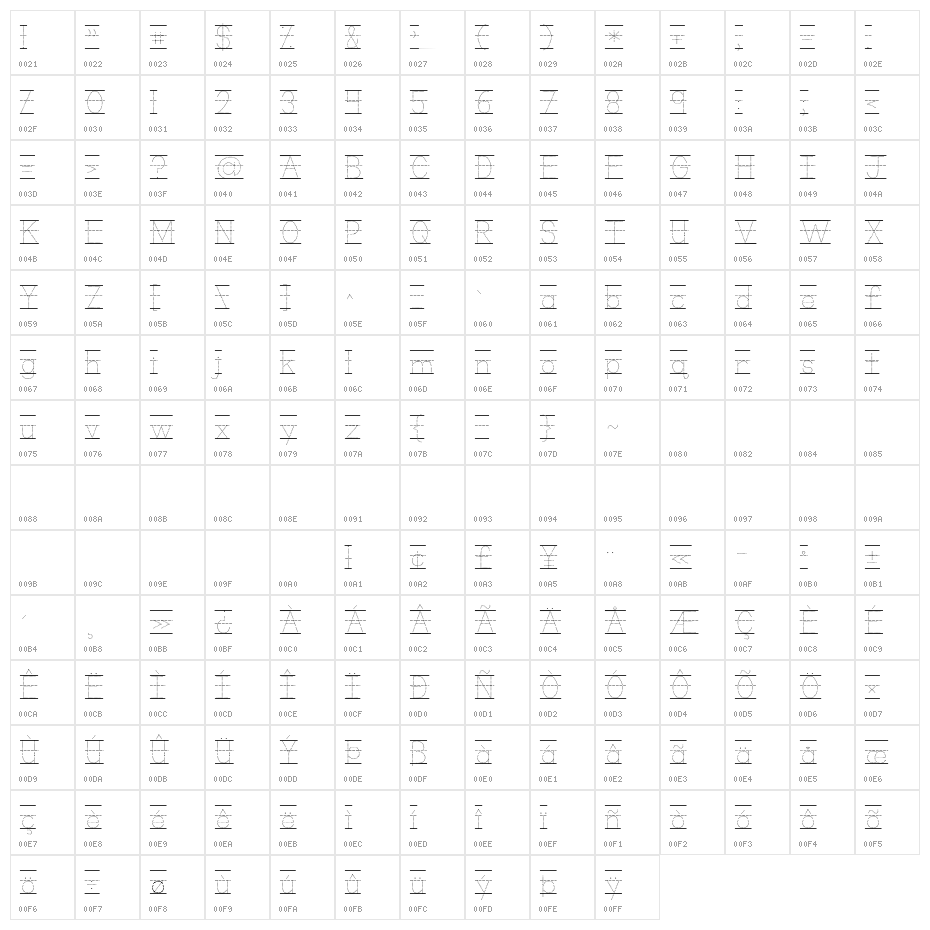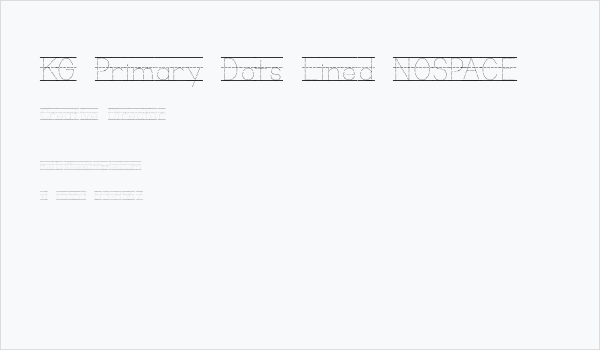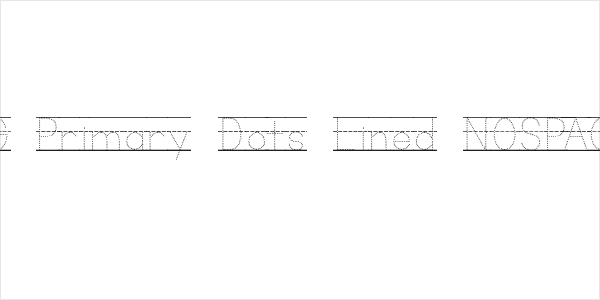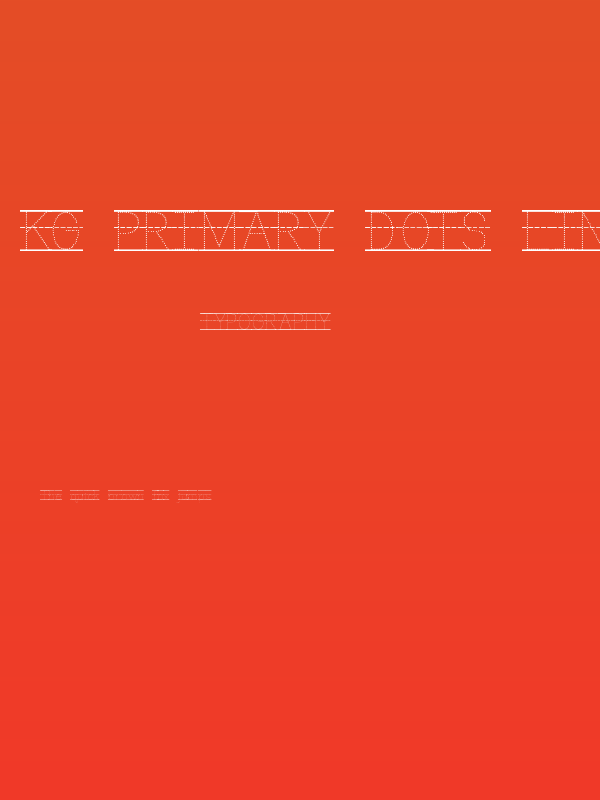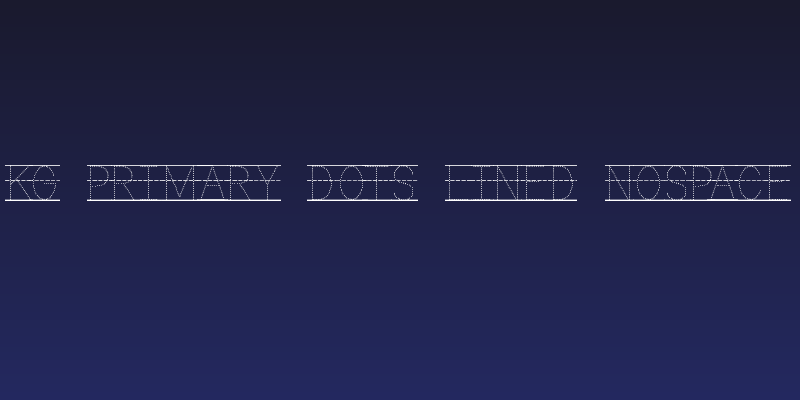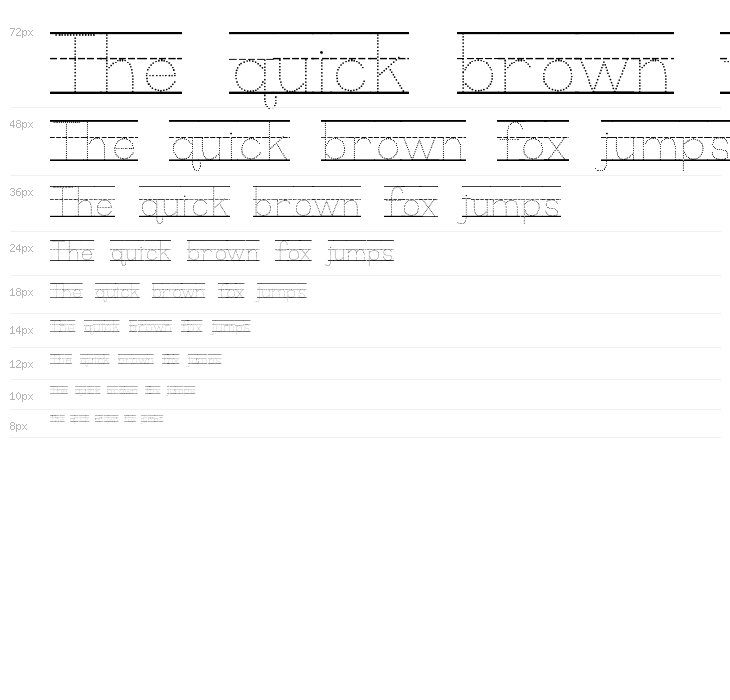
KG Primary Dots Lined NOSPACE Font
KG Primary Dots Lined NOSPACE Description
This font features a dotted design, reminiscent of handwriting practice sheets used in educational settings. The characters are evenly spaced and aligned with guiding lines, making it ideal for teaching letter formation. The uppercase and lowercase letters maintain a consistent style, with rounded edges and clear, simple forms. Numbers and special characters follow the same dotted pattern, ensuring uniformity across all glyphs. The font's simplicity and clarity make it highly legible, even in smaller sizes, and its playful yet educational appearance is perfect for young learners.
Overall StyleEducational, Playful
Use CaseEducational materials, Handwriting practice
Proposed ProjectsIdeal for educational materials, children's books, handwriting practice sheets, and classroom decorations.